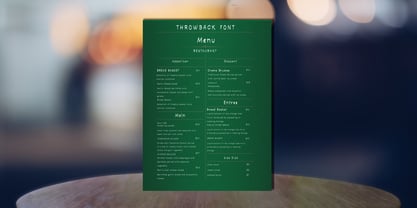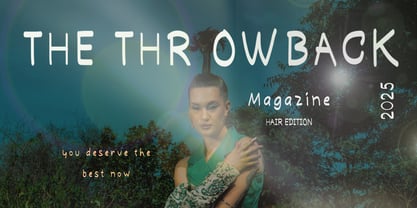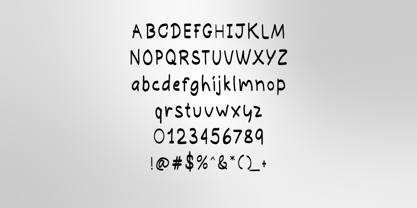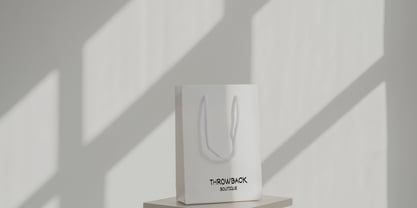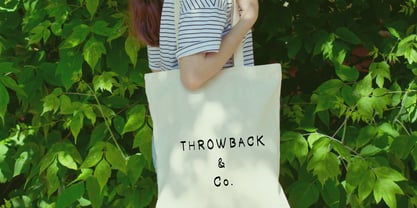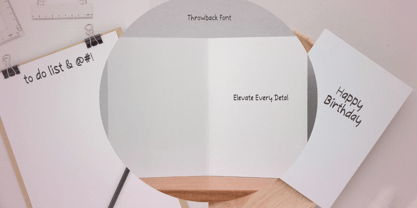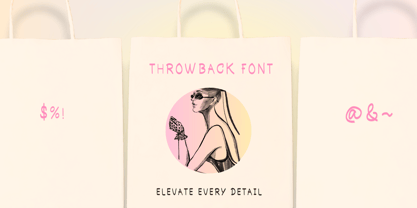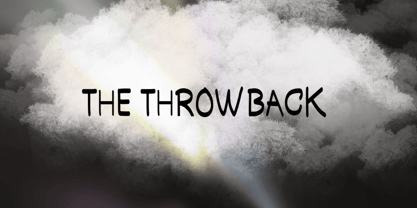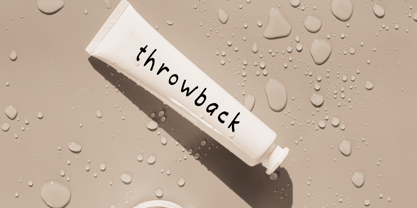
The Throwback
The Throwback – Elevate Your Vision with Retro Sophistication
Step into a world where elegance meets nostalgia. The Throwback is more than a font; it's a statement. Crafted with hand-drawn precision, this typeface radiates boldness, creativity, and a touch of playful sophistication. Inspired by the carefree charm of retro design and fused with contemporary allure, The Throwback brings your projects to life with an unforgettable touch.
Every letter carries a unique flair—bold, quirky, and undeniably stylish—designed to captivate the eyes of luxury brands, editorial designers, interior creatives, and art directors. From high-end branding and luxury campaigns to exclusive publications and innovative interior decor, The Throwback is made for those who demand excellence.
Key Features:
• Hand-drawn Uniqueness: Designed to inspire creativity and offer a sophisticated yet playful aesthetic.
• Versatile & Complete: Every accent, symbol, and character meticulously crafted for international appeal.
• Luxury-Approved: Perfect for projects seeking a “Wow Factor”—from fashion houses to high-end editorial spreads.
• Creative Branding Ready: Tailored for the discerning eye of art directors, editorial designers, and luxury brands.
• Timeless Appeal: Create something memorable and extraordinary that will stand the test of time.
Designer: Lesley Nurse
Foundry: LDN Surface & Co.